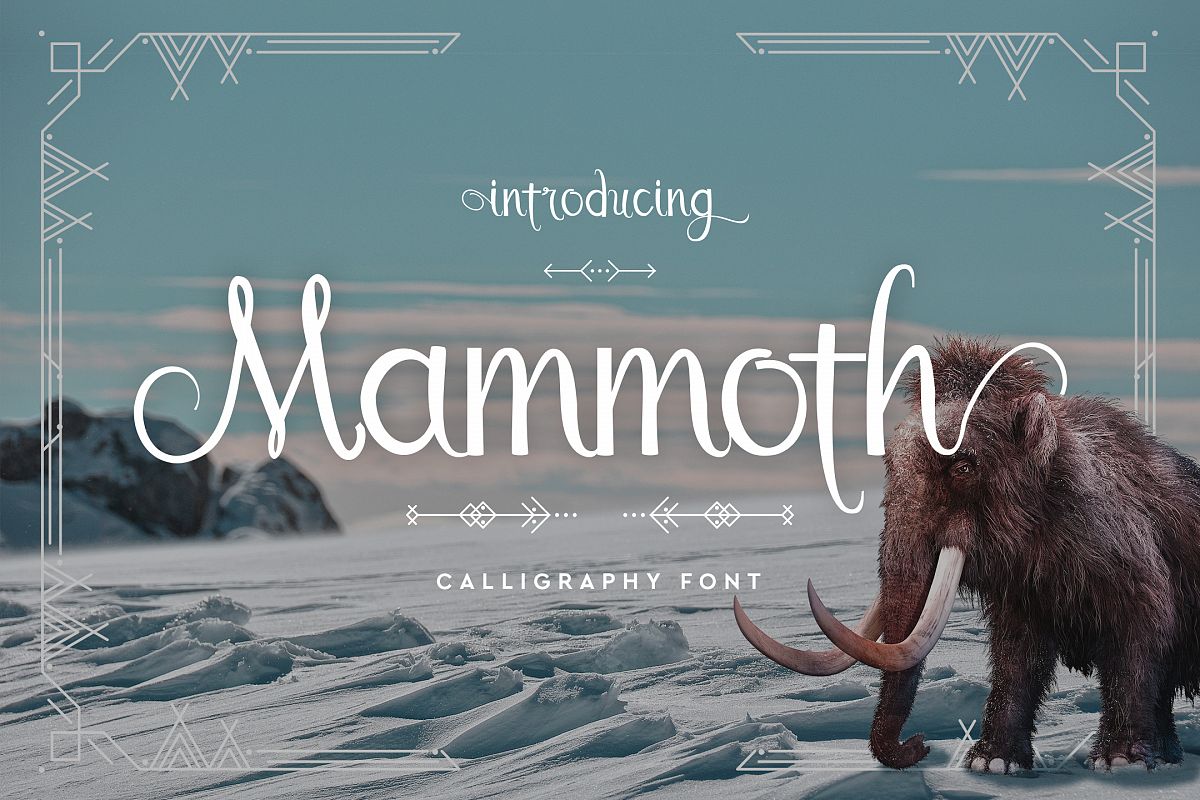
Mammoth is a huge calligraphy inspired typeface full of
character. With its tusk like curves and leaning letters this font is versatile
enough to survive an ice age!